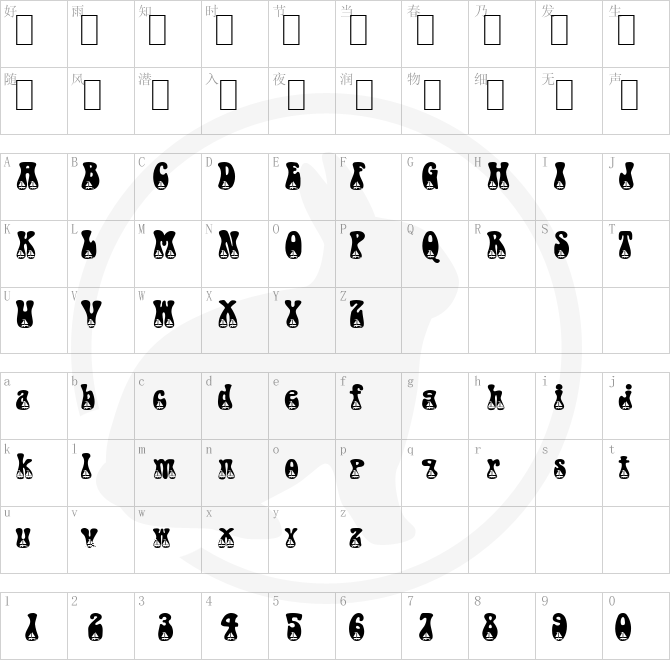
- Font Name:Sailboat Becker
Sailboat-Becker.ttf is a very beautiful artistic font, Sailboat-Becker.ttf is widely used in the design and printing of various books and pictures,Sailboat-Becker.ttf has a strong visual impact,Sailboat-Becker.ttf is a commonly used font in newspapers, magazines and books, and is used in posters, e-commerce Poster design, store design, logo design, font design and other fields.Sailboat-Becker.